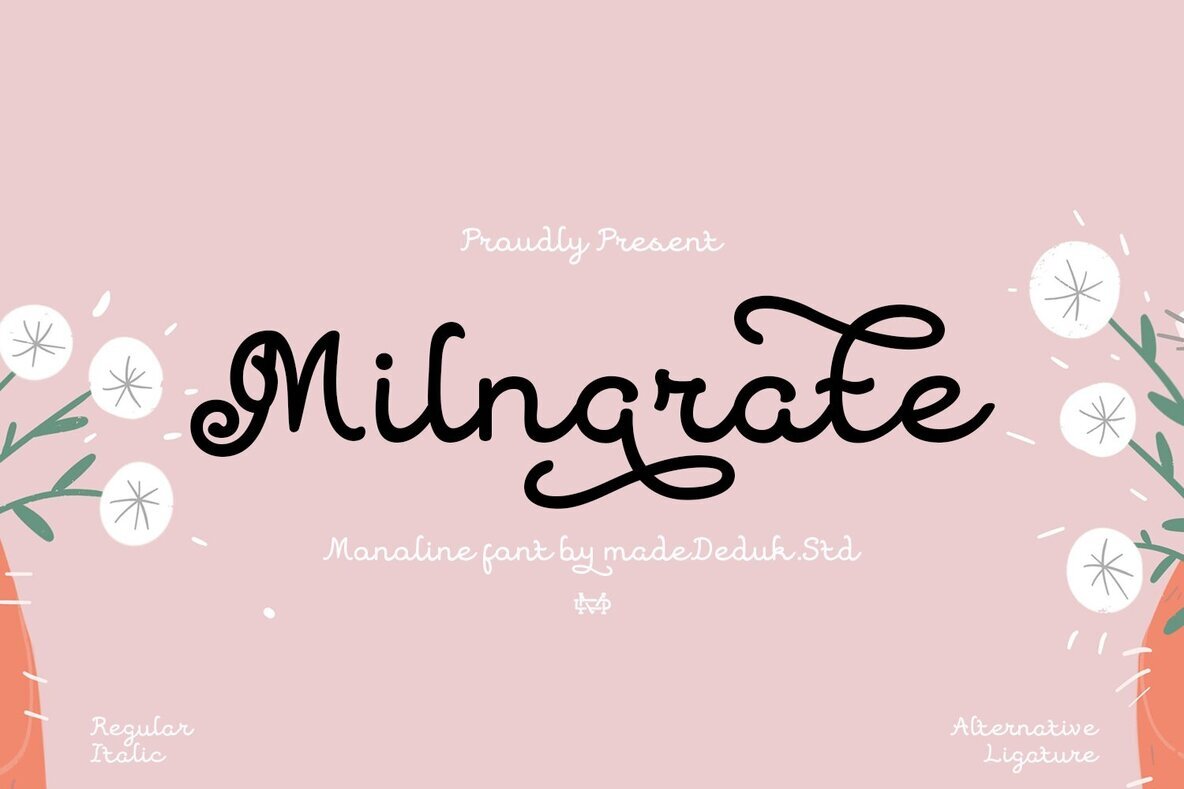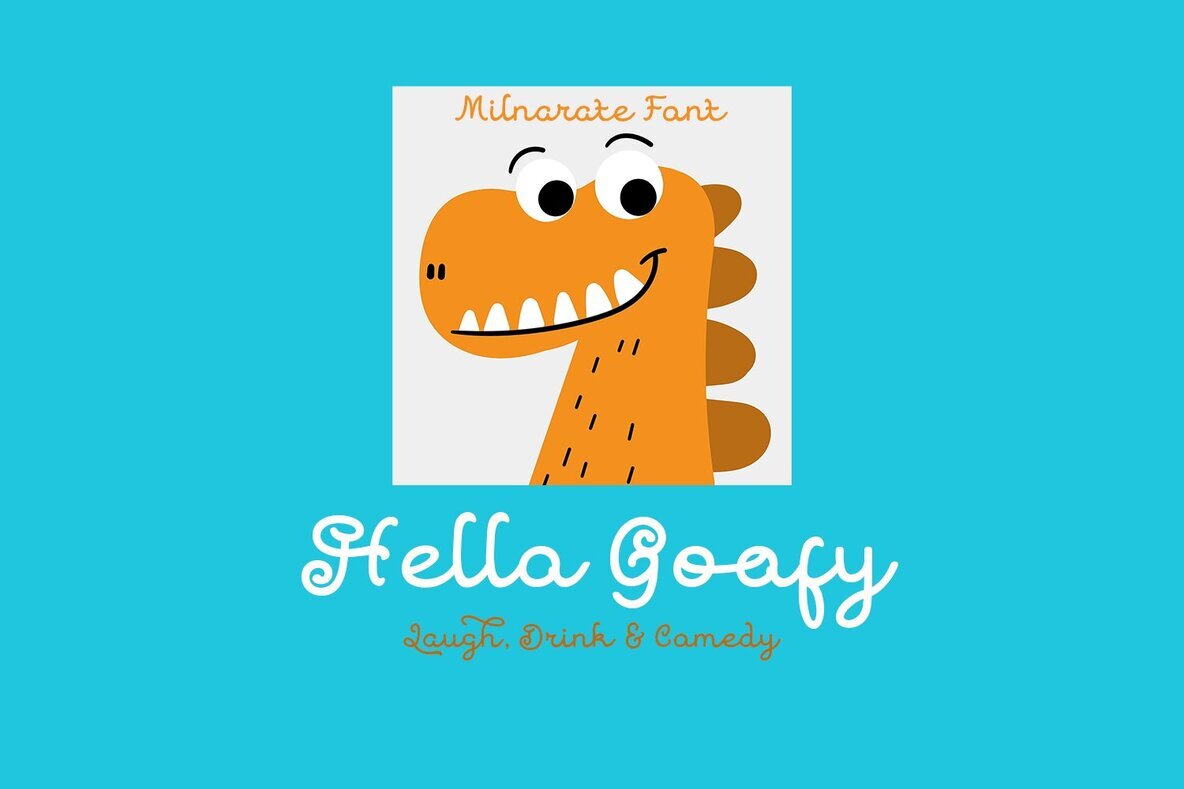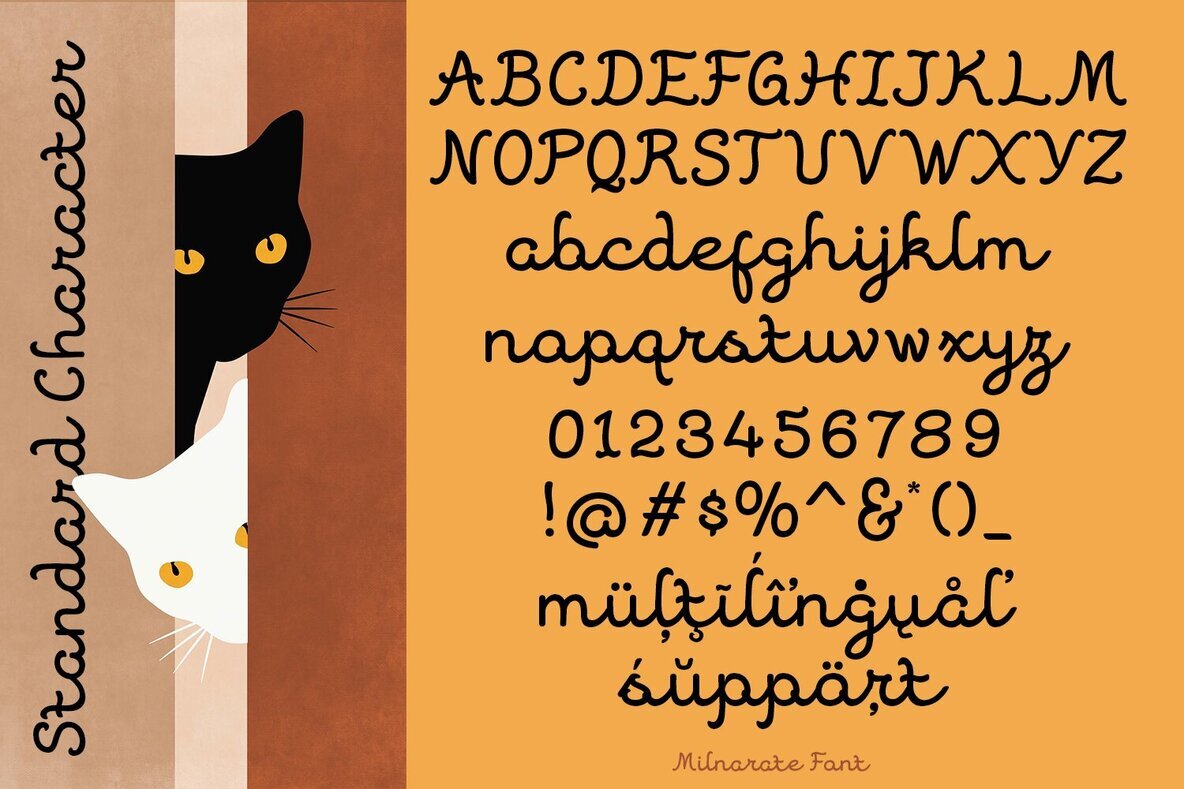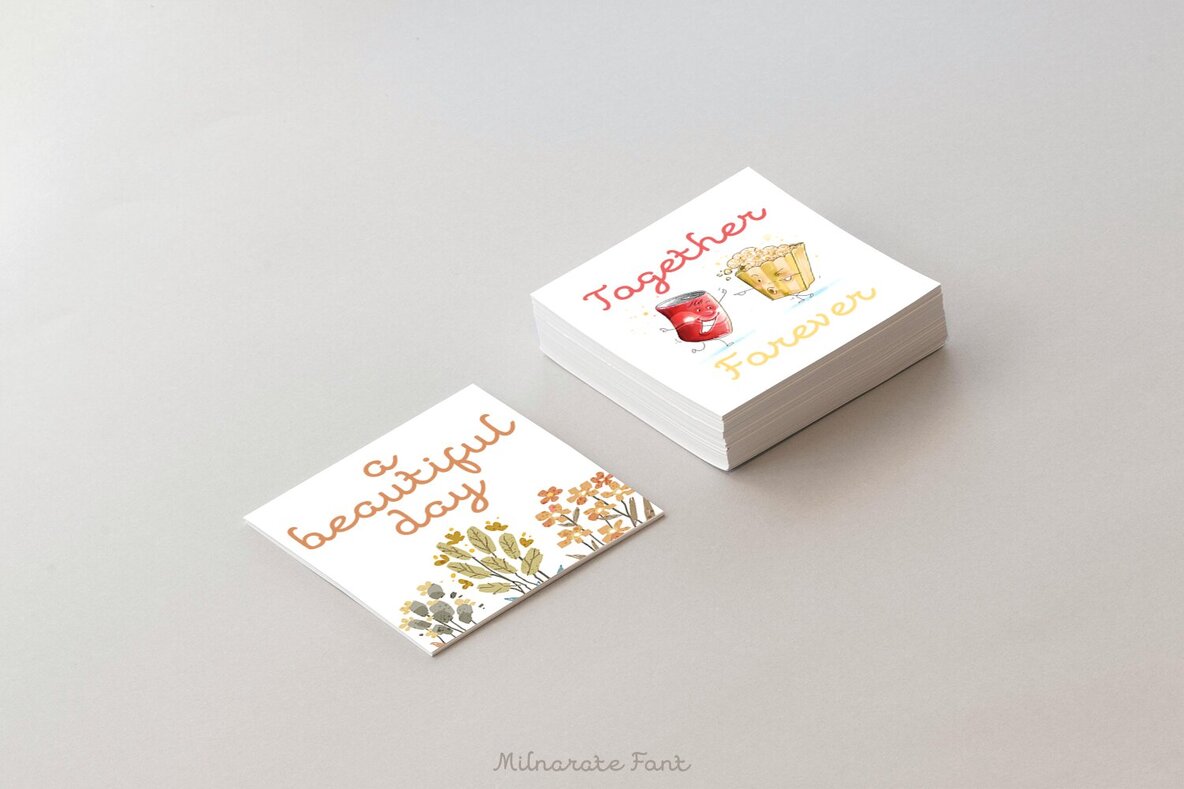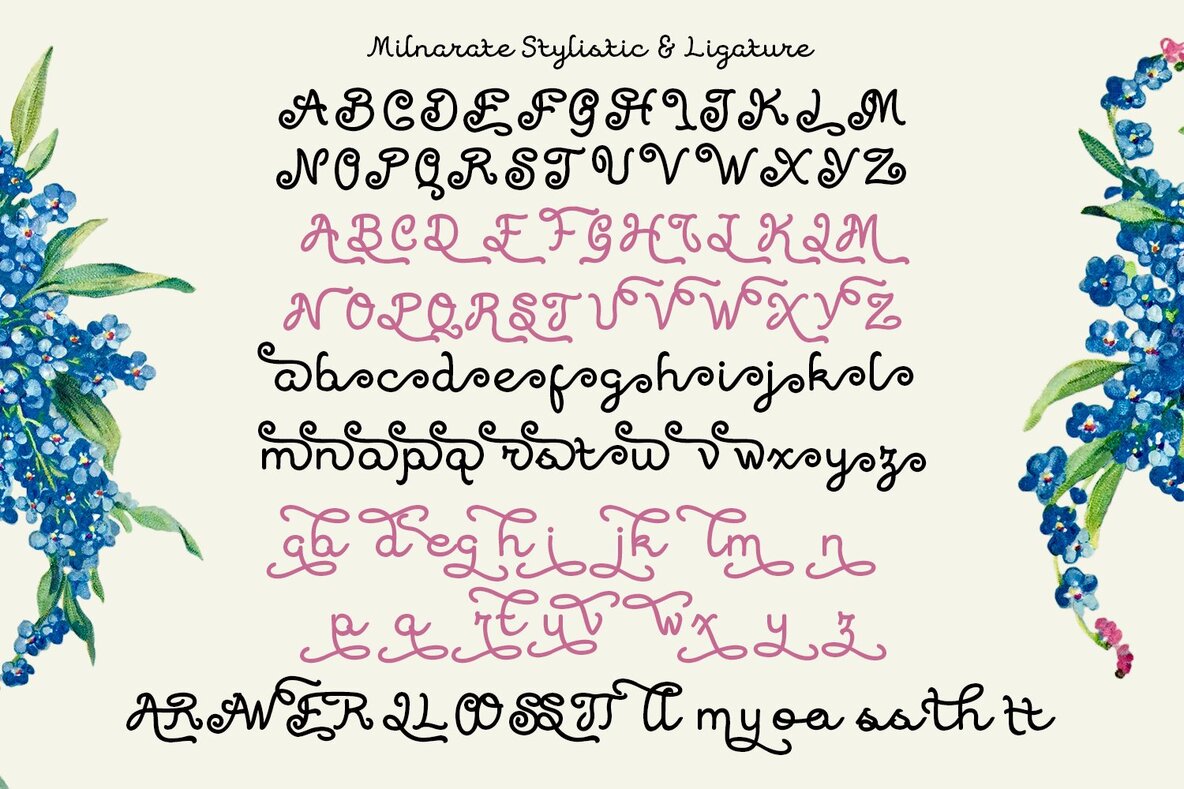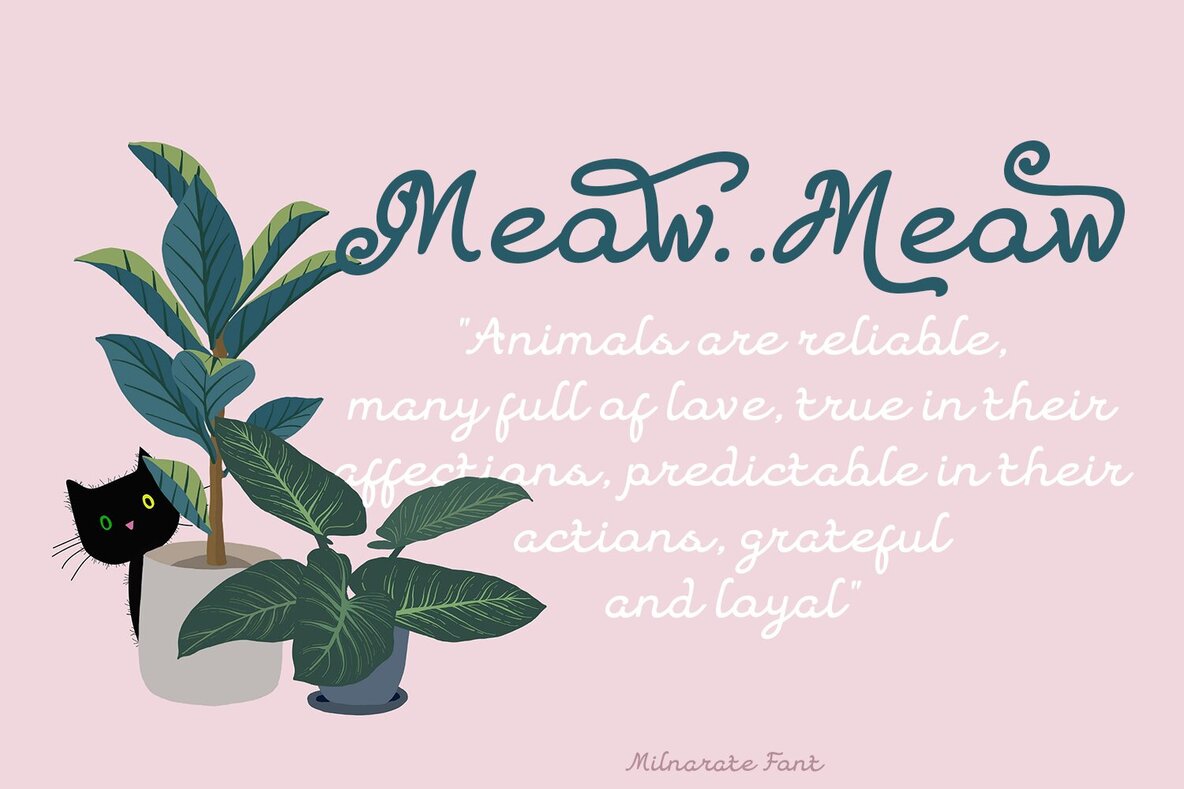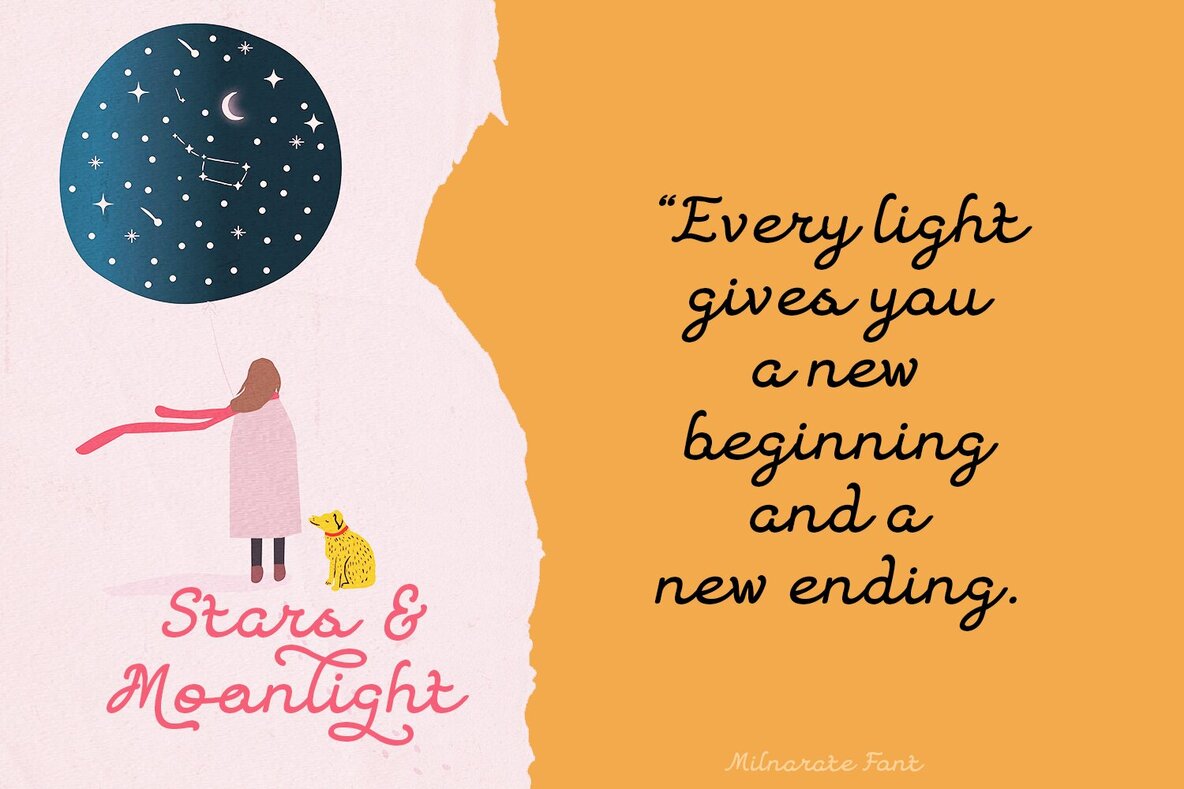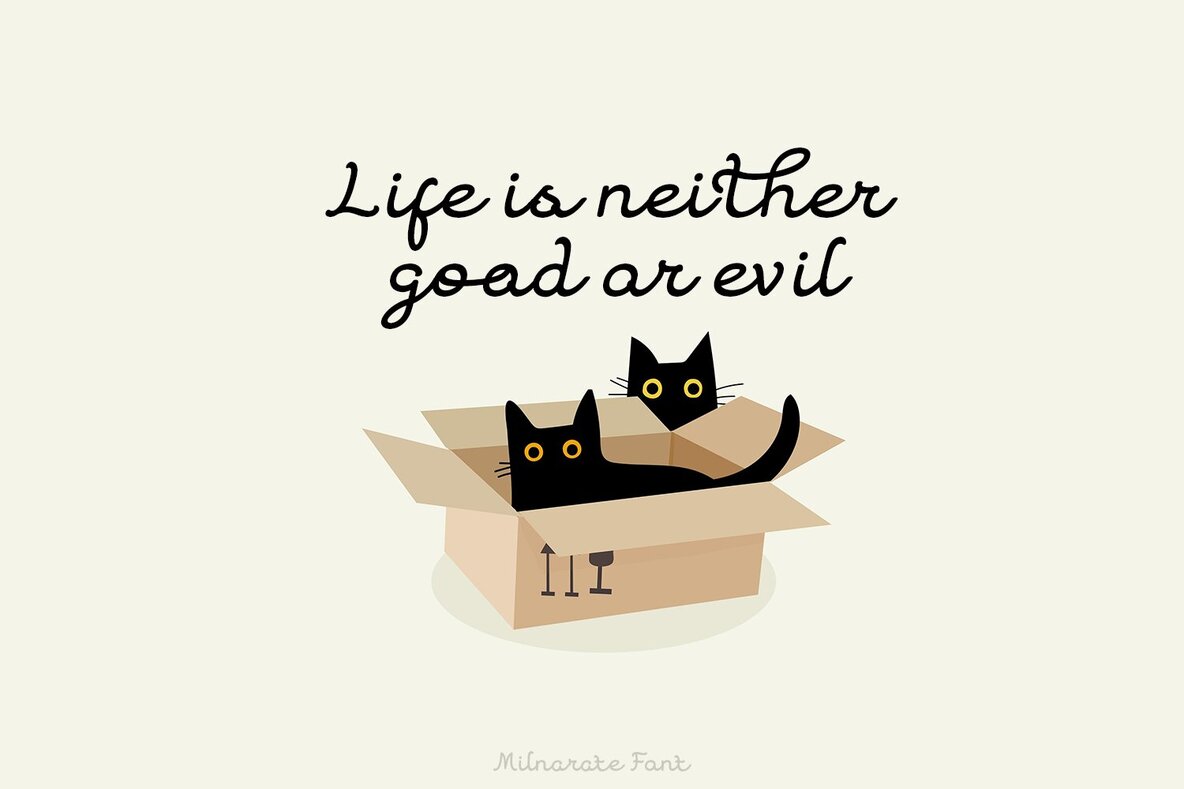
Milnarate Font
Milnarate Regular
Milnarate Italic
The Milnarate typeface stands out with its elegantly crafted glyphs, offering a monoline script design that adds visual appeal to any text. This font's curly style is complemented by numerous alternates and ligatures, allowing designers ample flexibility in enhancing their creations. Perfect for various applications, Milnarate lends a touch of simplicity and refinement to branding, product packaging, invitations, quotes, headlines, labels, posters, and logos. Whether your focus is on digital platforms or printed materials, this versatile font enriches your projects with unique charm and character.Milnarate: Elegantly Crafted Monoline Script